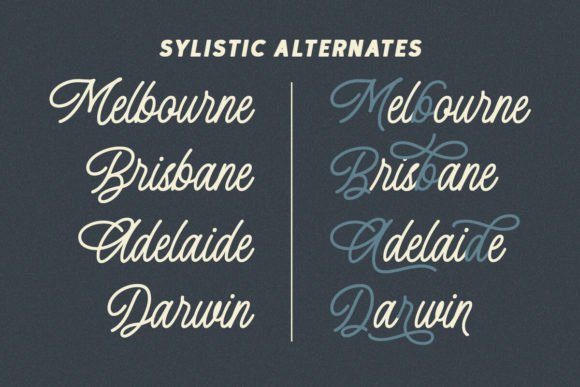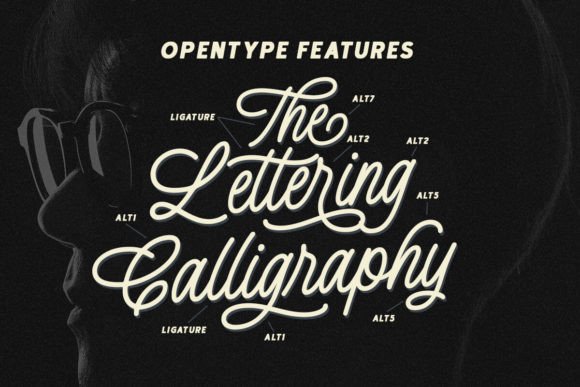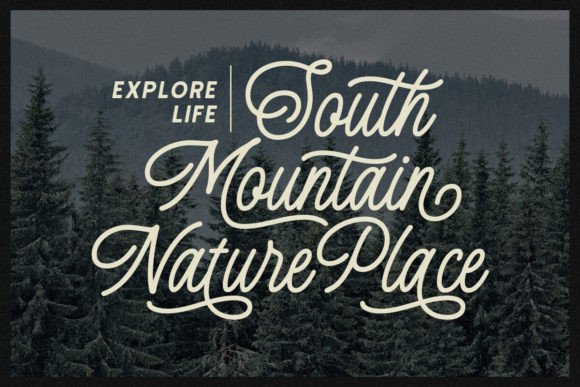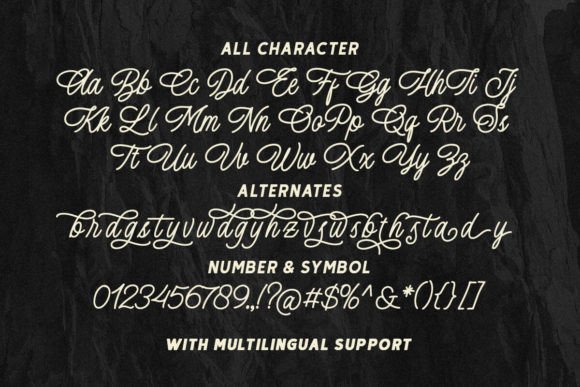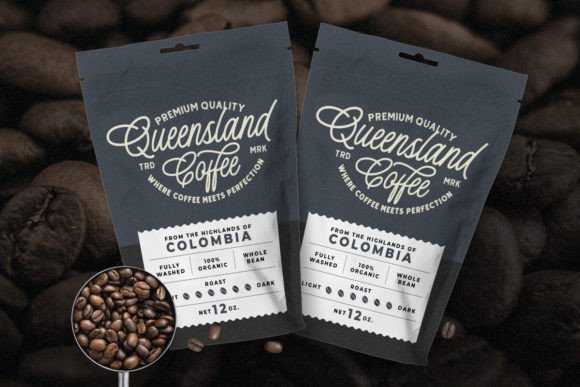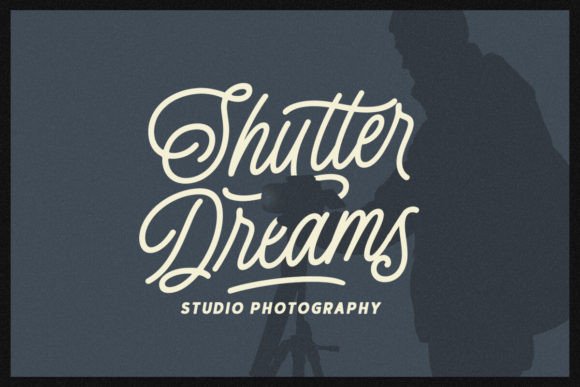
Introduction to Mathams Walter Font
The moment of truth arrives when you’re brainstorming ideas for a creative project, and the perfect design element slips into place, elevating your entire concept. For many designers, this moment is often tied to discovering the ideal font that adds a touch of elegance and sophistication to their work. If you’re one of those designers, you’re in luck because we’re about to introduce you to a stunning free download that will become your go-to design resource – the Mathams Walter Font.
This charming, casual monoline typeface boasts a delightfully rough version, which adds an artistic flair to any project. Whether you’re working on a high-quality logo, brochure, or website, Mathams Walter Font is sure to capture attention and leave a lasting impression. With its transparent background and versatile design, it’s the perfect addition to any creative project.
Key Features of Mathams Walter Font
- Mathams Walter Font features a unique, elegant design with a transparent background, allowing for seamless integration into various design elements.
- Perfect for designers looking to add a touch of sophistication and elegance to their creative projects, Mathams Walter Font is an excellent design resource.
Honest Review: Mathams Walter Font
I recently stumbled upon the Mathams Walter Font, and I must say it’s a great addition to my design resource library. ✨ The font has a unique, vintage feel that’s perfect for creative projects, especially those with a nostalgic or retro theme.
One of the standout features of this font is its high quality. It’s clear that the designer has put a lot of effort into crafting each character, from the uppercase letters to the punctuation marks. The transparent background makes it easy to use on any design surface, and the free download option is a big plus.
Here are some specific things that work well:
- Unique, vintage aesthetic
- High-quality character design
- Limited character set (only uppercase and lowercase letters, no special characters)
- No bold or italic variations
Overall, I’m impressed with the Mathams Walter Font. While it may not be the most versatile font out there, it’s a great choice for specific creative projects where a vintage vibe is key. ⚠️ With a little bit of planning, you can get the most out of this font and create some truly unique designs.
Tips for Getting the Most Out of Mathams Walter Font
To get the most out of Mathams Walter Font, use it for creative projects that require a high-quality, elegant font with a transparent background. Experiment with different font sizes, colors, and combinations to achieve the desired effect.
Mathams Walter Font is commonly used in wedding invitations, branding materials, and other design projects that require a sophisticated and elegant look. Its versatility makes it a popular choice among designers.